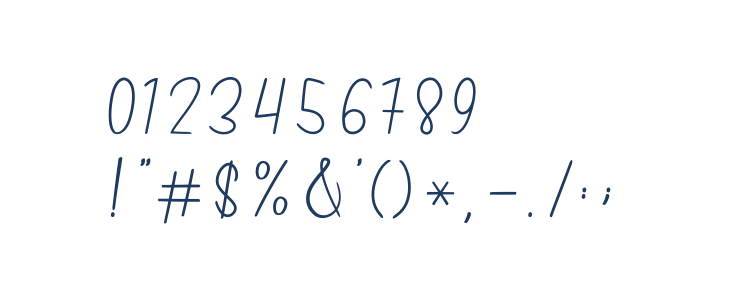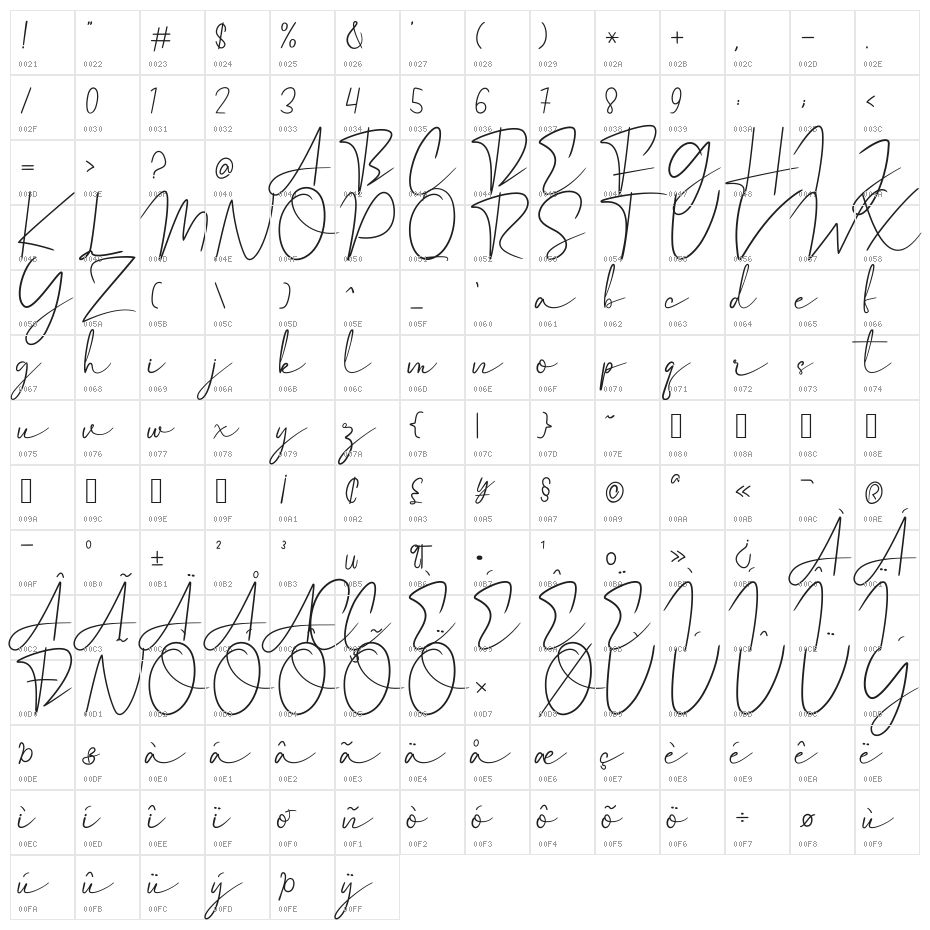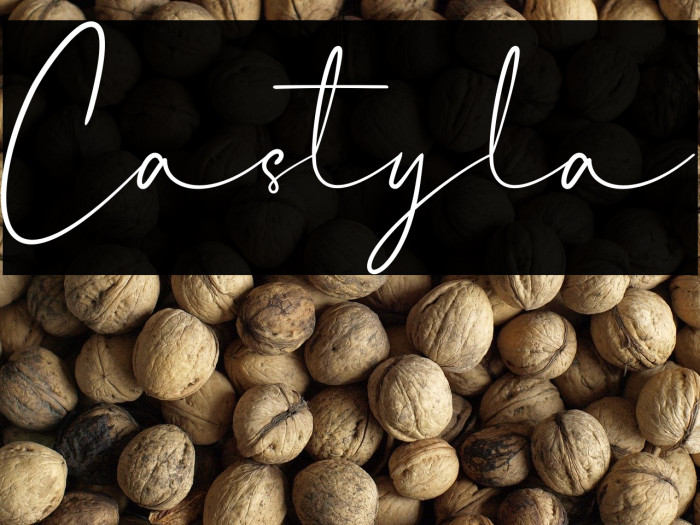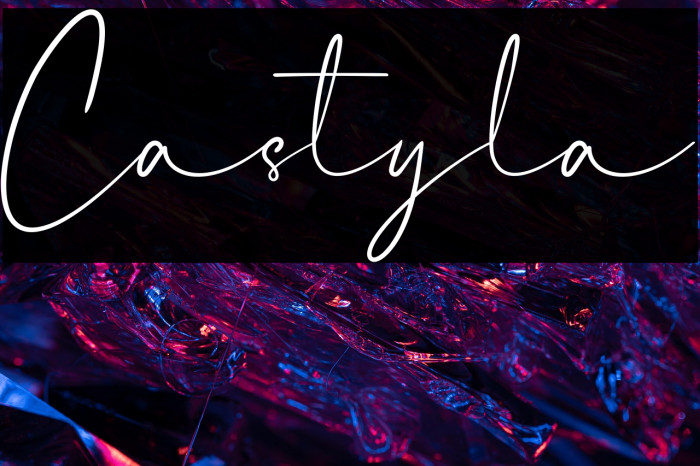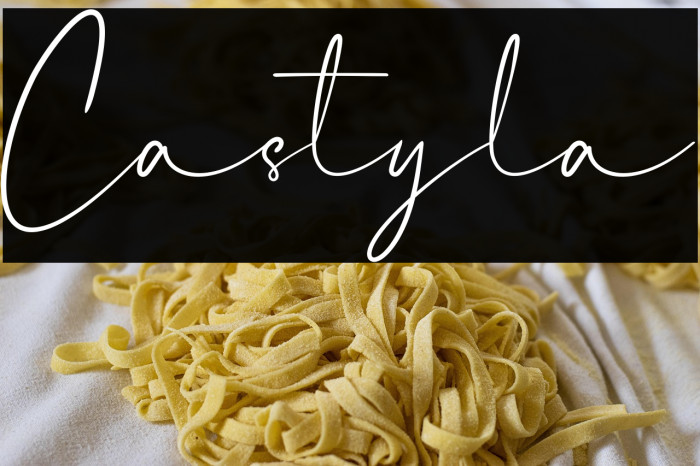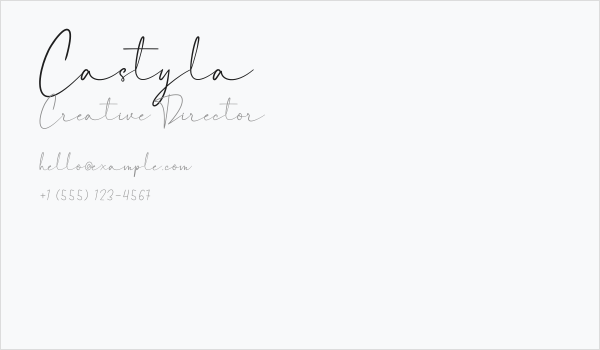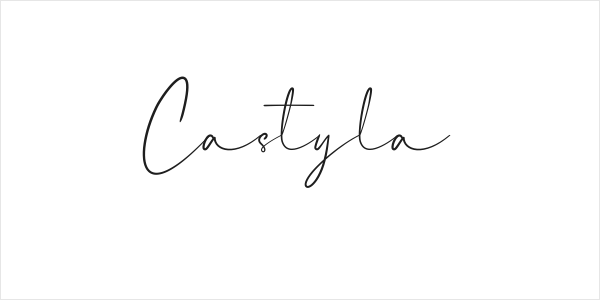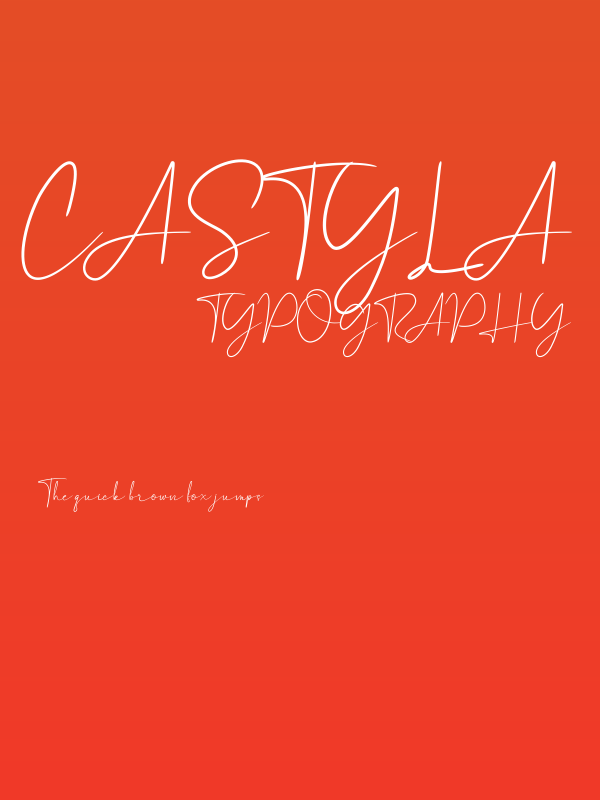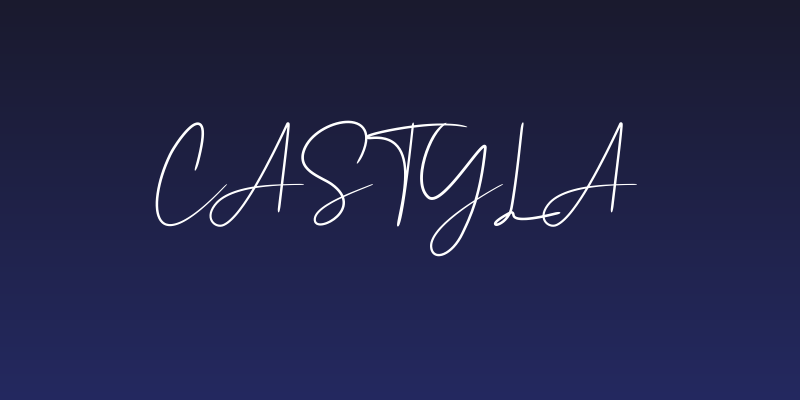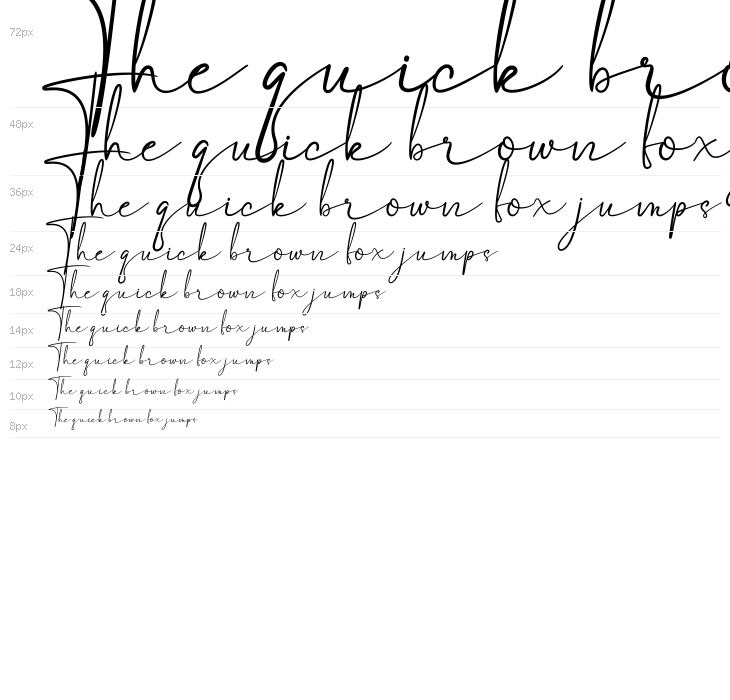
Castyla Font
Castyla Description
This font features a delicate and flowing script style, characterized by its elegant, cursive letterforms. The uppercase letters exhibit a graceful, looping design, while the lowercase letters maintain a consistent, fluid connection, enhancing the overall cohesiveness. The numerals are clear and legible, maintaining the script's aesthetic with slight curves. Special characters are thoughtfully integrated, complementing the font's sophisticated appearance. The thin strokes and gentle curves give it a refined and artistic look, suitable for projects that require a touch of elegance and personal flair.
| Overall Style | Elegant, Artistic |
| Proposed Projects | Ideal for wedding invitations, greeting cards, personal branding, and elegant logos. |